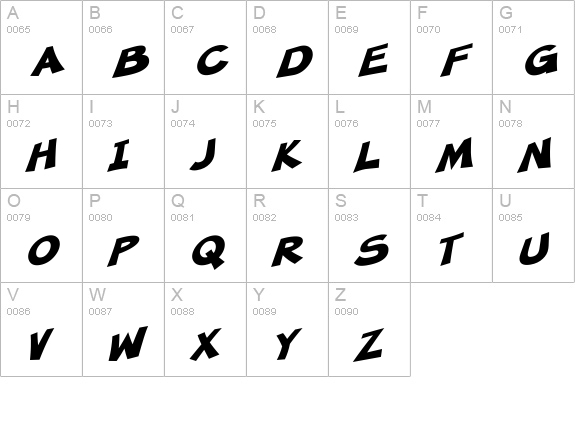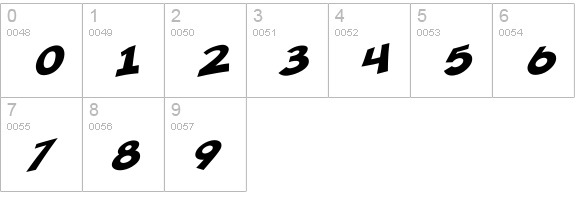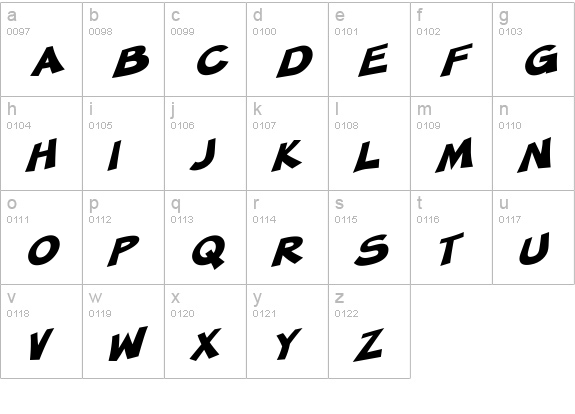
SF Minced Meat Bold Oblique Font Details
SF Minced Meat Bold Oblique is a strong, high-contrast, italic variant in the SF typeface family \xE2\x80\x94 well suited to headlines, attention-grabbing titles, and strong calls-to-action.
SF Minced Meat Bold Oblique is a bold and dynamic font that exudes a sense of power and strength. Its slanted, italicized design adds a touch of elegance and sophistication, making it perfect for projects that require a modern and edgy look. This font is meticulously crafted, with every curve and angle carefully considered to create a visually striking and impactful typeface. The bold weight ensures that each letter commands attention, while the oblique angle adds a subtle twist, giving it a unique and distinctive personality. SF Minced Meat Bold Oblique is ideal for a wide range of design applications. Whether you're creating eye-catching posters, attention-grabbing headlines, or stylish branding materials, this font will effortlessly elevate your designs to new heights. And the best part is, SF Minced Meat Bold Oblique is freely available to download at FontsMarket.com. This means that you can easily access and use this incredible font without any restrictions or limitations. FontsMarket.com offers a vast collection of high-quality fonts, and SF Minced Meat Bold Oblique is just one of many amazing options available to you. So, don't miss out on the opportunity to incorporate SF Minced Meat Bold Oblique into your design projects. Download it today from FontsMarket.com and unleash its power and versatility in your creative endeavors.